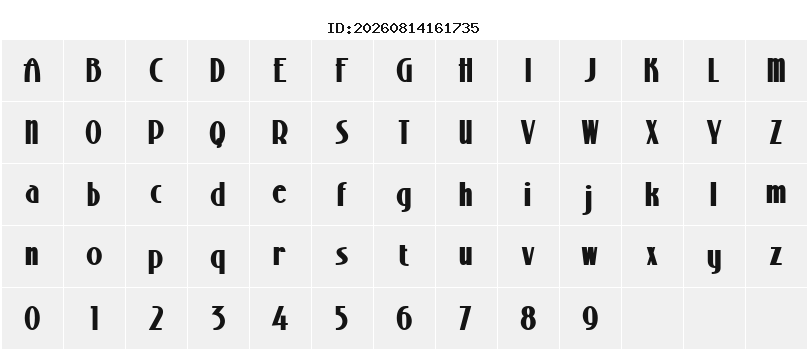
• Font Name: Stony Island NF
• Designer: Nick Curtis
• Manufacturer: Nick's Fonts
About Stony Island NF.ttf
Stony Island NF.ttf is a modern, elegant sans-serif font designed for ultimate readability and visual harmony. Perfect for branding, headlines, web design, and print materials.